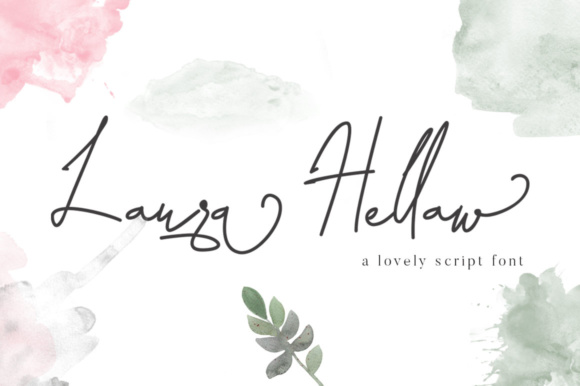
Step into a realm of artistic expression with Laura Hellaw Font, a script font that dances across your designs with grace and charm. Crafted by the talented hands at TempCraft, this monoline signature font is a symphony of modern elegance and timeless sophistication.
With its flowing lines and delicate curves, Laura Hellaw Font effortlessly elevates your designs, adding a touch of individuality and creativity. Its monoline construction creates a cohesive and unified look, making it ideal for a myriad of projects, from wedding invitations to branding and social media graphics.
Let Laura Hellaw Font be your creative compass, guiding you to express your unique voice in a world of digital noise. Its versatility knows no bounds, lending itself seamlessly to logos, posters, flyers, and any project yearning for a touch of modern calligraphy.
Indulge in the beauty of Laura Hellaw Font and let its elegant curves inspire your imagination. Its monoline structure ensures effortless readability, making it perfect for both digital and print applications. With its timeless appeal, this font promises to make your designs stand out from the crowd.